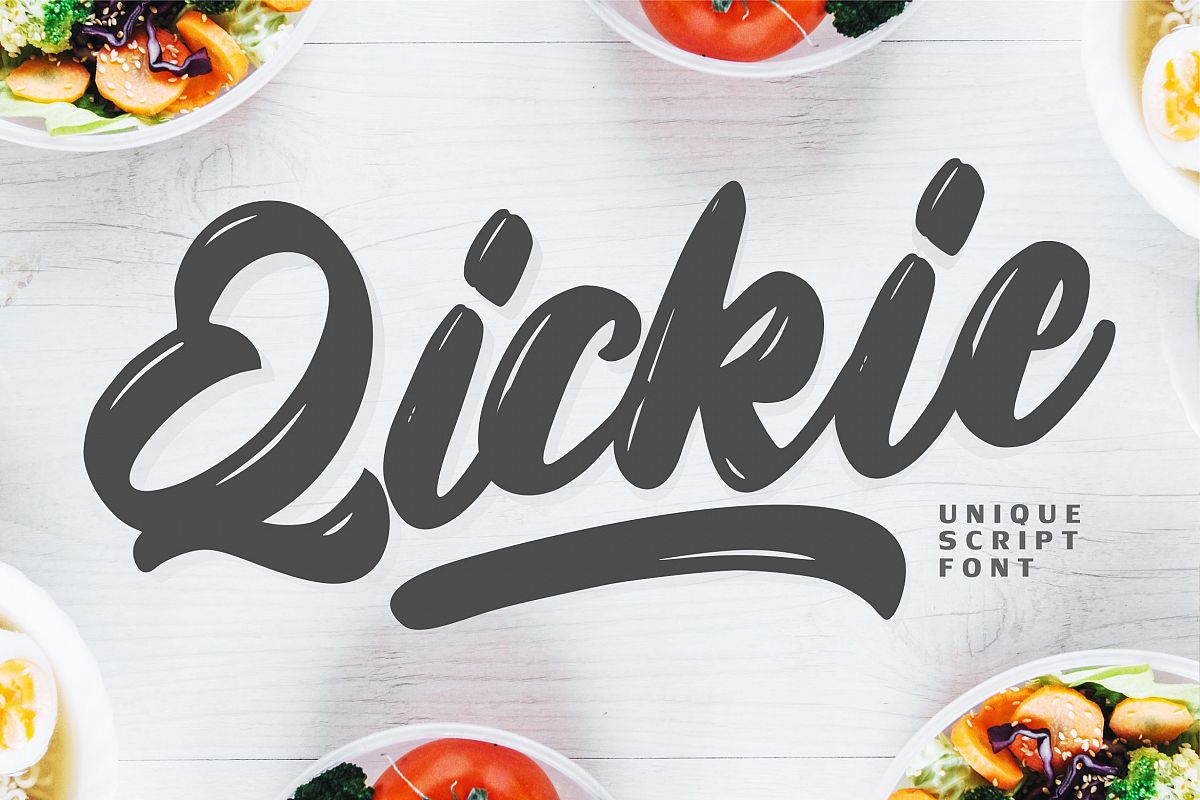
Qickie - Unique Script Font
Qickie
Qickie - Unique Script Font
So beautiful on invitation like greeting cards, branding materials, business cards, quotes, posters, and more!